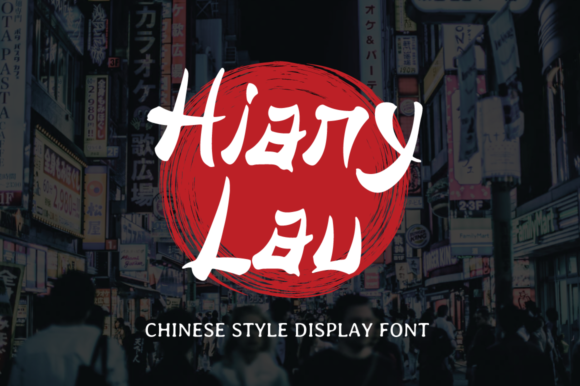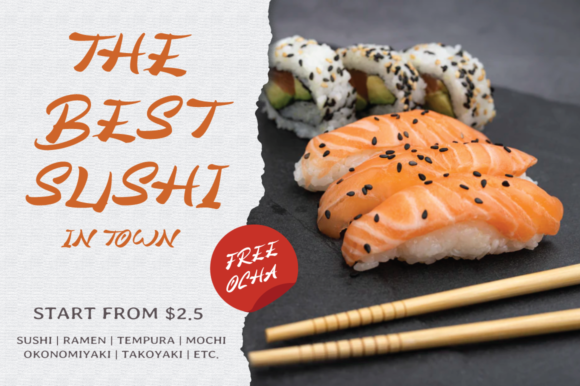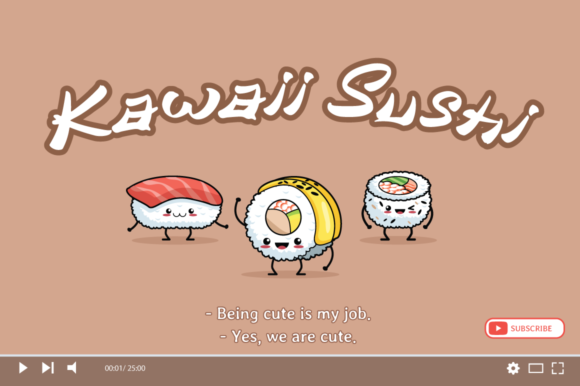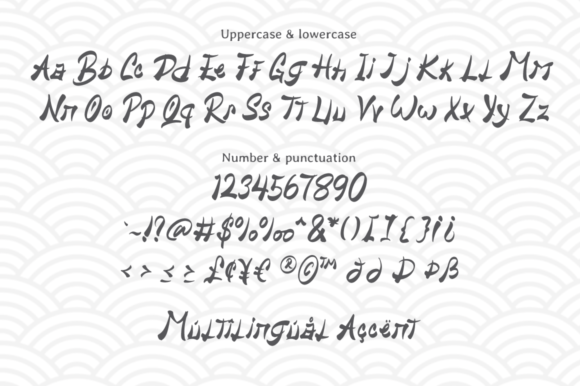
Hiany Lau Font: A Bold Display Font with Unique Chinese Aesthetic
About the Hiany Lau Font
The Hiany Lau Font is here to transform your projects with its distinctive character and style. Hiany Lau is a cool and genuine display font, inspired by the Chinese culture. This original look will appeal to a wide range of crafty ideas, from letterheads and titles, to stationery.
Hiany Lau Font excels as a display font for headlines, short text blocks, and branding elements where its unique character can shine. It’s ideal for projects needing a touch of modern, yet culturally-inspired boldness, such as logos, posters, and packaging for products emphasizing craftsmanship or a connection to Asian aesthetics. Avoid using it for large amounts of body text or UI elements; its distinct forms are better suited for impactful statements than extended readability.
This font’s personality is confident and sophisticated, with a hint of playfulness. To complement this, pairing Hiany Lau with a clean sans-serif like Montserrat for body copy provides excellent contrast and readability. Alternatively, a delicate script font could add a touch of elegance for refined applications. A geometric sans-serif would offer a modern, balanced counterpart, creating a visually strong and harmonious combination.
For a more traditional feel, a classic serif like Garamond could be used to offset the font’s contemporary flair. The key is to choose a pairing that maintains visual balance and doesn’t compete with Hiany Lau’s distinctive forms.